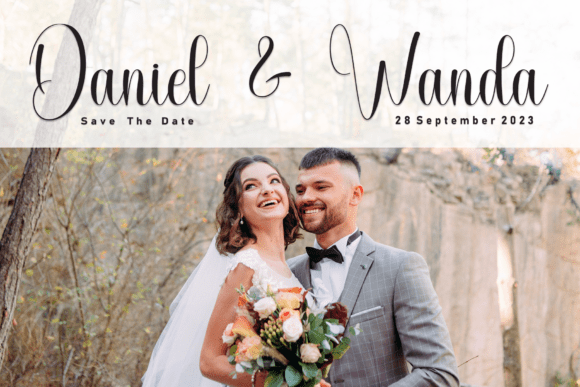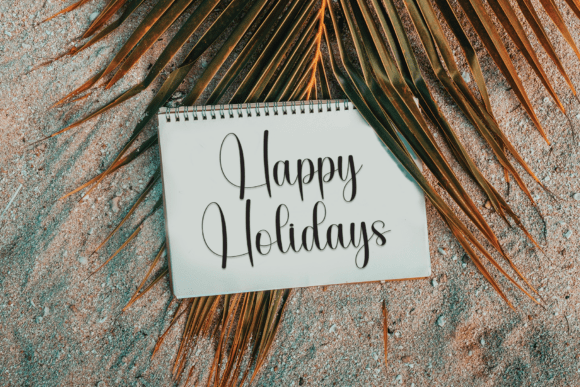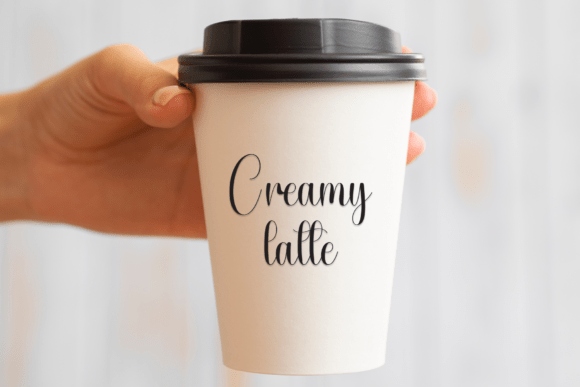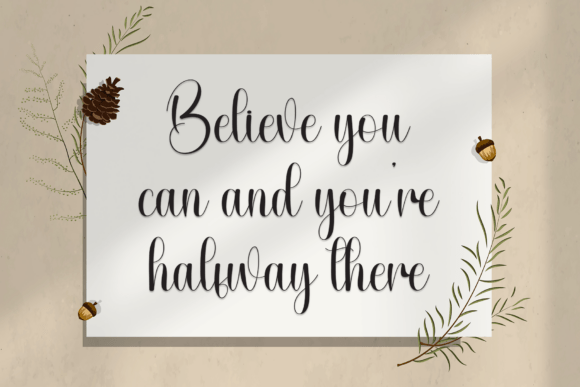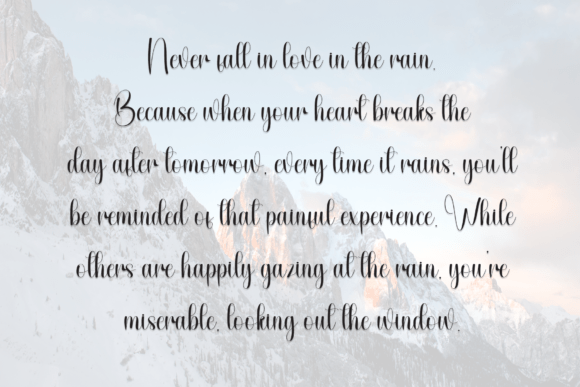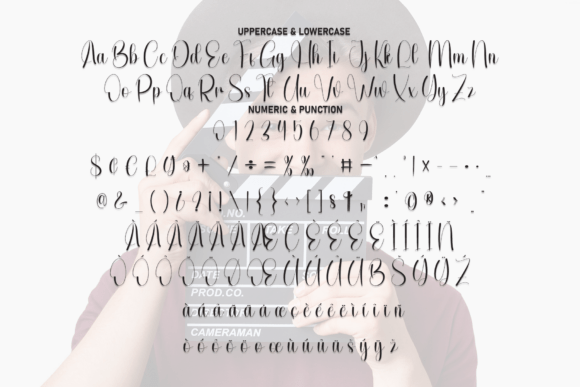
Introducing Action Font: Elevate Your Designs with Elegance and Sophistication
In the world of typography, a well-crafted font can make all the difference in elevating a design from ordinary to extraordinary. For designers and crafters seeking to add a touch of refinement and modern charm to their projects, Action Font is an exceptional choice. This stylish script font is designed to bring a sense of elegance and fluidity to a wide range of applications, from logos and invitations to packaging and social media graphics.
The Beauty of Action Font
Action Font is a masterfully designed script font that seamlessly blends traditional calligraphy with contemporary flair. Its graceful strokes, fluid curves, and meticulously crafted letterforms evoke the beauty of hand-drawn calligraphy, while its modern twist ensures it remains fresh and relevant. The font’s natural flow and polished details make it an excellent choice for designers seeking to add a sophisticated touch to their work.
Key Features of Action Font
- Elegant and Refined Design: Action Font boasts a stylish and refined design, perfect for creating luxurious and high-end visuals.
- Fluid Curves and Graceful Strokes: The font’s fluid curves and graceful strokes give it a natural, hand-drawn feel that sets it apart from more rigid typography.
- Versatility and Visual Appeal: With its wide range of applications, Action Font delivers both versatility and visual appeal, making it an excellent addition to any designer’s toolkit.
- Modern Twist: The font’s modern twist ensures it remains contemporary and relevant, even in today’s fast-paced design landscape.
Action Font’s versatility makes it an excellent choice for a wide range of design applications. Some of the most popular uses for this font include:
- Logos and Branding: Create a lasting impression with a custom logo that exudes elegance and sophistication.
- Invitations and Event Materials: Add a touch of refinement to wedding invitations, event programs, and other materials.
- Packaging Design: Elevate your product packaging with a font that conveys luxury and high-end quality.
- Social Media Graphics: Create eye-catching social media graphics that showcase your brand’s personality and style.
Tips for Using Action Font Effectively
To get the most out of Action Font, consider the following tips:
- Pair with Complementary Fonts: Combine Action Font with complementary fonts to create visual interest and hierarchy.
- Experiment with Colors and Textures: Don’t be afraid to experiment with different colors and textures to add depth and dimension to your design.
- Pay Attention to Spacing and Kerning: Ensure your text is easy to read by paying close attention to spacing and kerning.
Action Font is a stylish and sophisticated script font that offers a unique blend of elegance and modern charm. Its versatility, visual appeal, and refined design make it an excellent choice for designers and crafters seeking to elevate their projects. Whether you’re creating logos, invitations, packaging, or social media graphics, Action Font is sure to deliver a lasting impression.